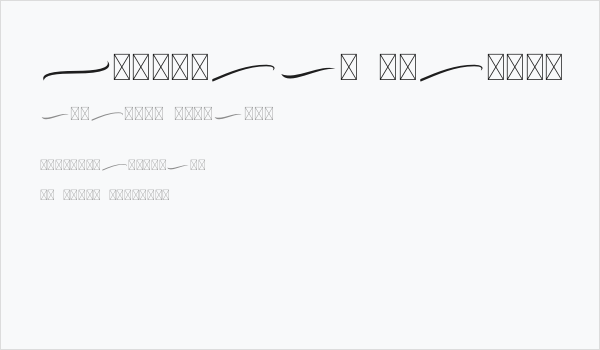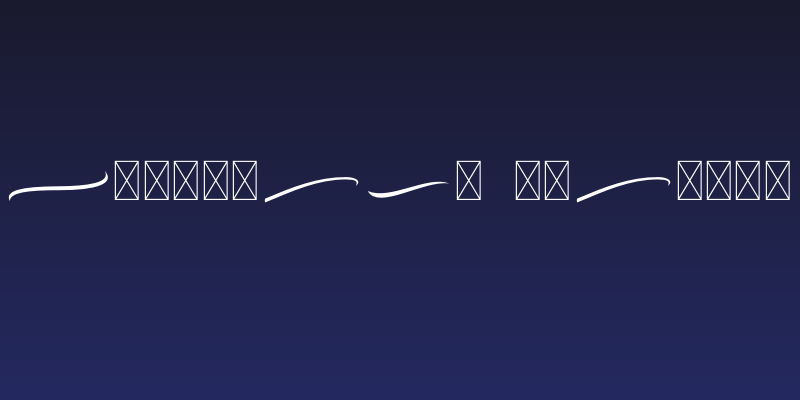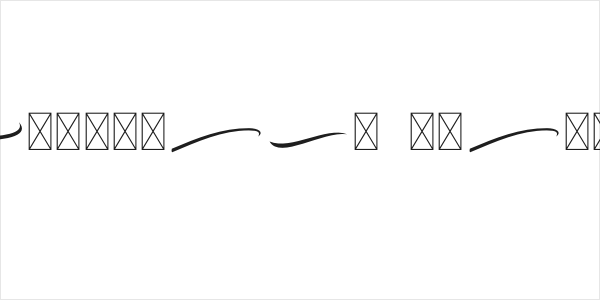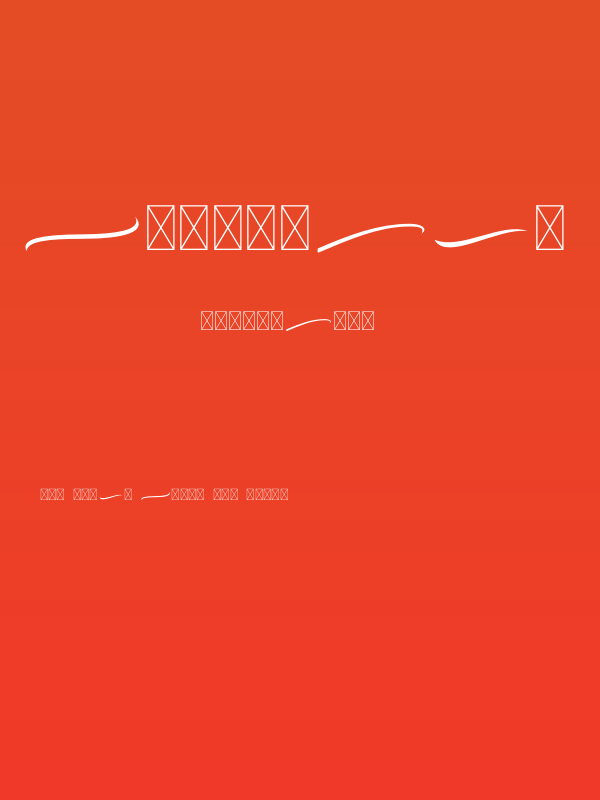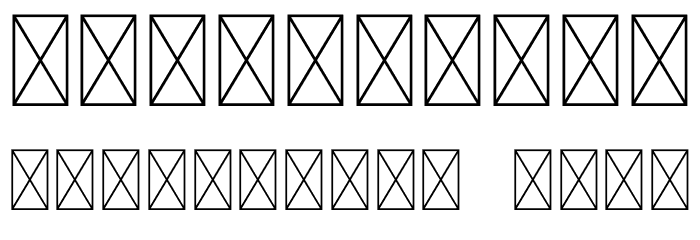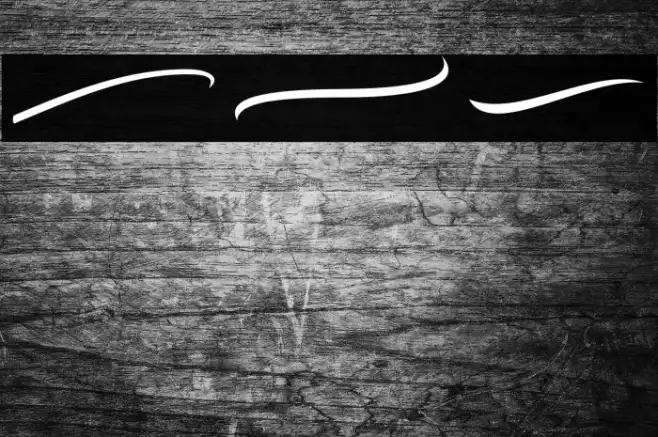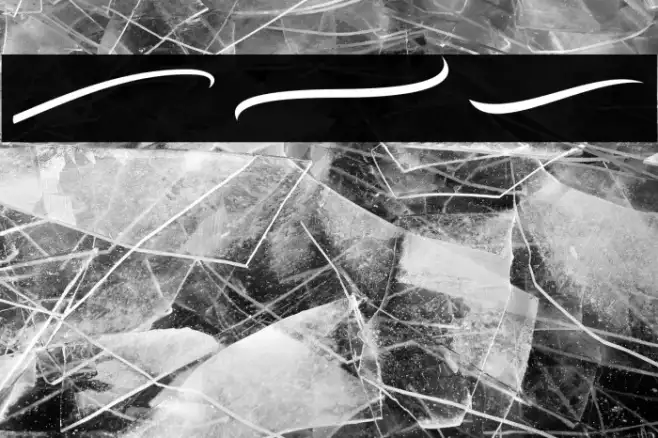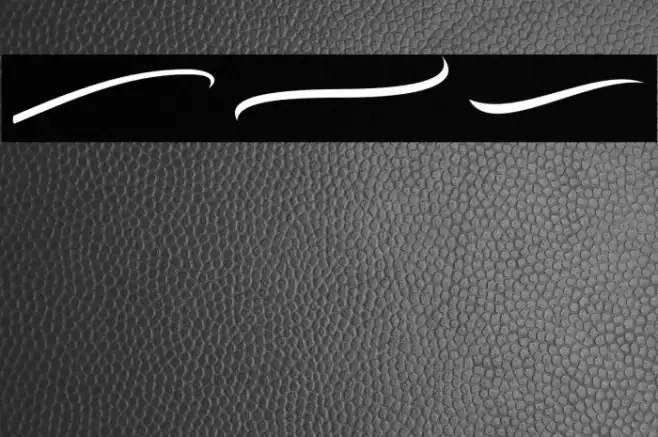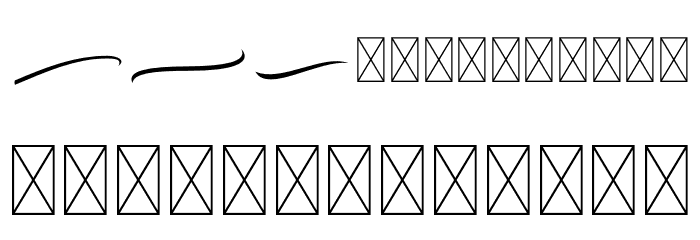
Bodytrack Swashes Font
Bodytrack Swashes Description
This is not a valid font; the image contains decorative swashes and placeholder boxes instead of recognizable alphanumeric characters or symbols.